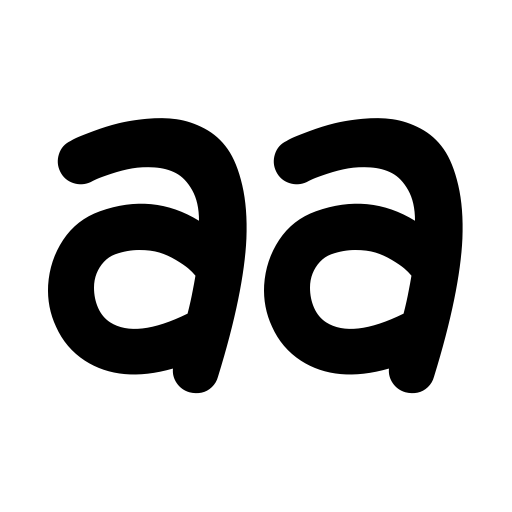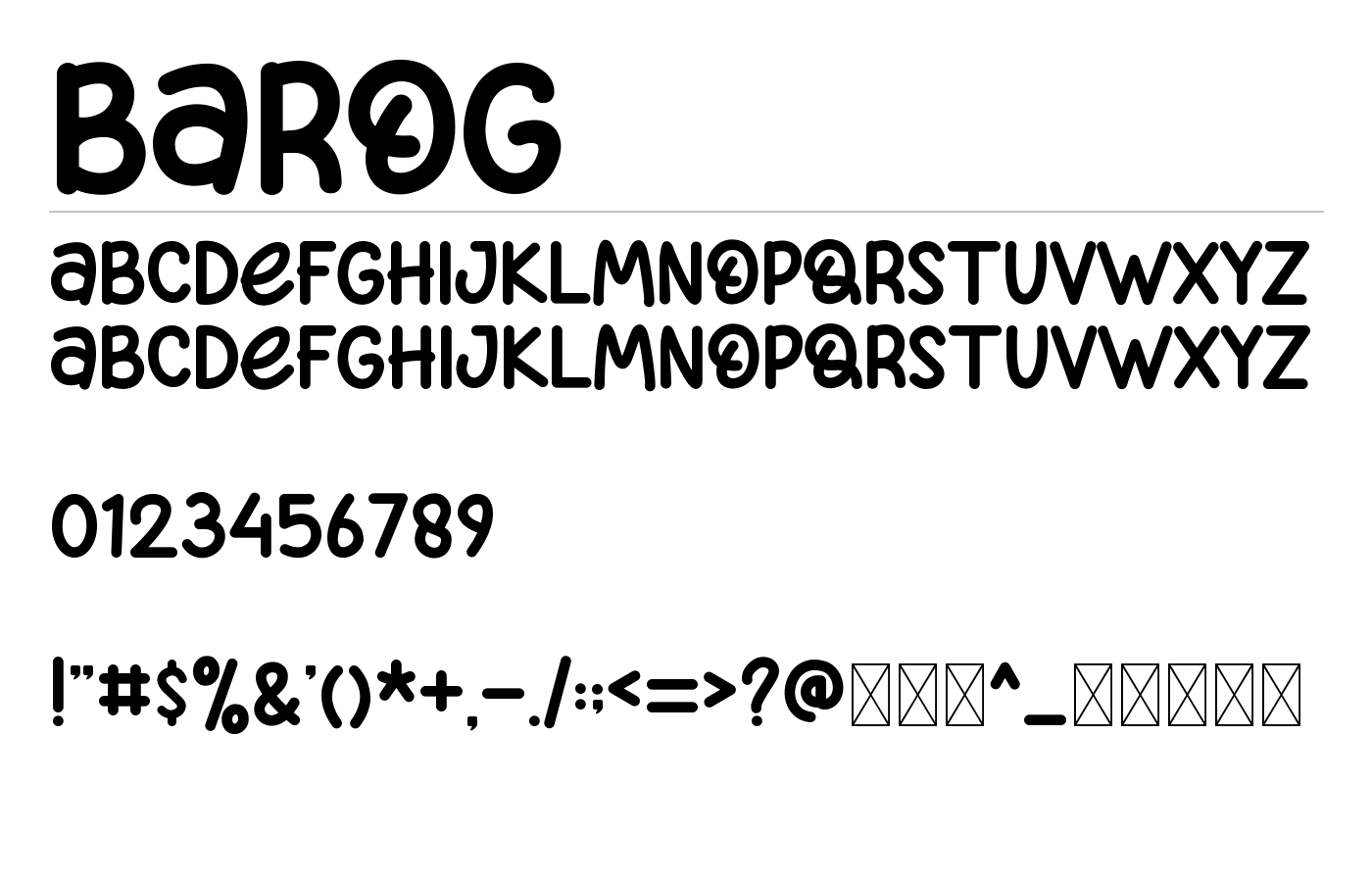
Barog is a playful and quirky sans serif font with a rounded, bold style that adds a friendly and approachable feel to any design. Its unique letterforms and smooth curves make it perfect for creative branding, children's materials, or casual headlines where a touch of personality is needed. This font works well in informal contexts, bringing warmth and character to logos, posters, and fun editorial projects.
Barog Font